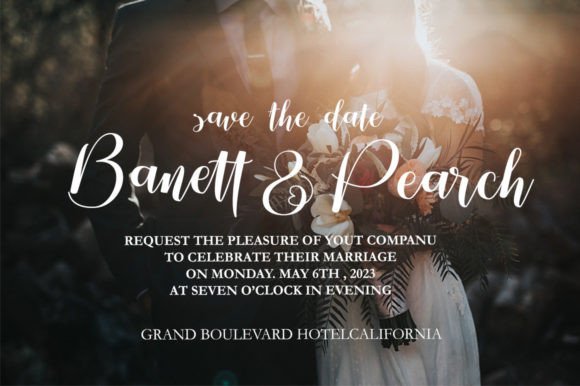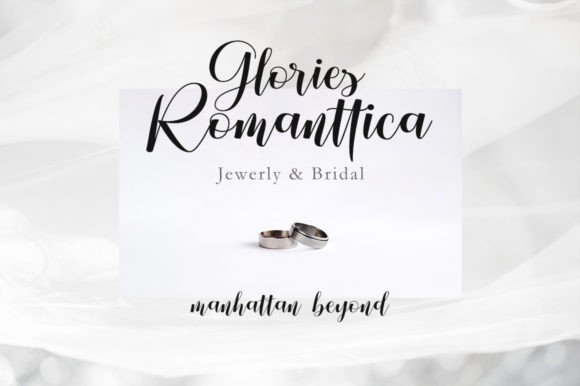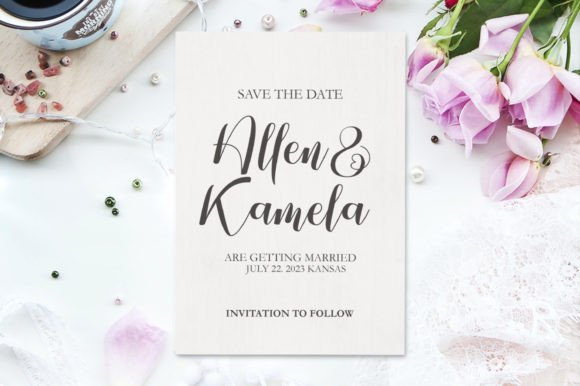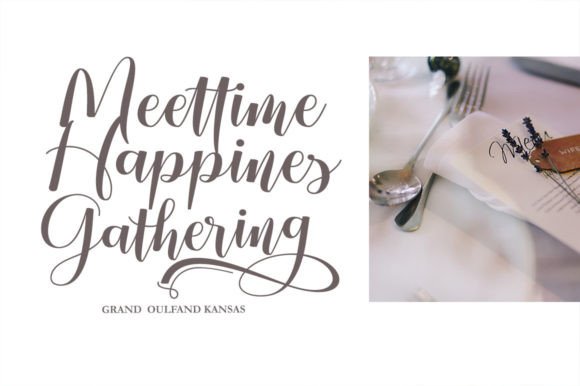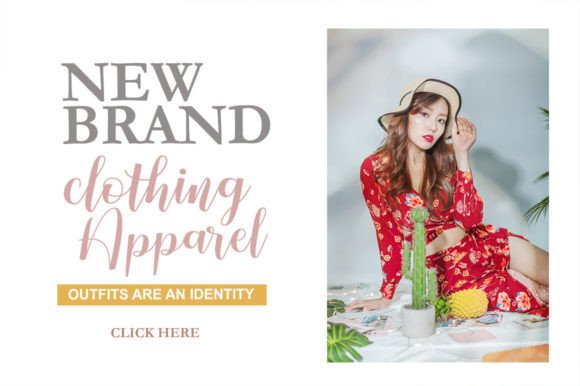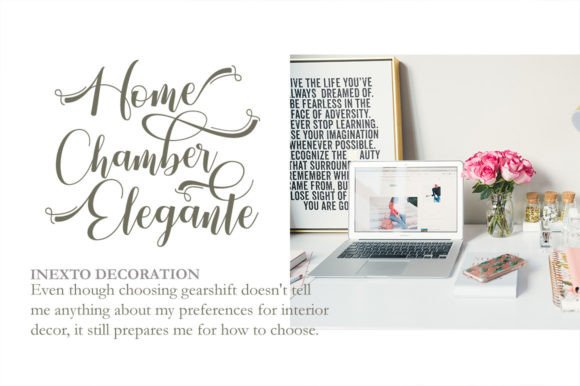
Introducing Amole Font: The Ultimate Romantic Calligraphy Typeface
Are you looking for a font that adds a touch of luxury and romance to your design projects? Look no further than Amole Font! This stunning calligraphy typeface is designed to make your designs stand out with its unique and elegant style. In this article, we’ll dive into the features and benefits of Amole Font, and explore how it can elevate your design game.
What is Amole Font?
Amole Font is a romantic and sweet calligraphy typeface that is sure to capture the hearts of designers and crafters alike. Its characters are carefully crafted to dance along the baseline, creating a sense of movement and fluidity that is both visually appealing and engaging. With its elegant and refined style, Amole Font is perfect for adding a touch of luxury to any design project.
Key Features of Amole Font
- Romantic and Sweet Style: Amole Font boasts a romantic and sweet calligraphy style that is perfect for designs that require a touch of elegance and sophistication.
- Unique Character Movement: The characters in Amole Font are designed to dance along the baseline, creating a sense of movement and fluidity that sets it apart from other fonts.
- Luxury and Refined: Amole Font is perfect for designs that require a touch of luxury and refinement, making it ideal for high-end branding, packaging, and marketing materials.
- Highly Versatile: Amole Font can be used for a wide range of design projects, from wedding invitations and stationery to logos, branding, and advertising.
Benefits of Using Amole Font
So, why should you choose Amole Font for your design projects? Here are just a few benefits of using this stunning calligraphy typeface:
- Adds a Touch of Luxury: Amole Font adds a touch of luxury and sophistication to any design project, making it perfect for high-end branding and marketing materials.
- Creates Emotional Connection: The romantic and sweet style of Amole Font creates an emotional connection with the viewer, making it perfect for designs that require a personal touch.
- Stand Out from the Crowd: Amole Font is a unique and distinctive typeface that will help your designs stand out from the crowd and grab attention.
Who Can Use Amole Font?
Amole Font is perfect for a wide range of designers and crafters, including:
- Graphic Designers: Amole Font is perfect for graphic designers who need a luxurious and refined font for their designs.
- Wedding Designers: Amole Font is ideal for wedding designers who need a romantic and sweet font for wedding invitations, stationery, and other materials.
- Crafters: Amole Font is perfect for crafters who need a unique and elegant font for their DIY projects, such as handmade cards, gift tags, and other paper crafts.
- Branding and Marketing Professionals: Amole Font is perfect for branding and marketing professionals who need a luxurious and refined font for their clients’ branding and marketing materials.
Tips for Using Amole Font
Here are a few tips for using Amole Font in your design projects:
- Use it Sparingly: Amole Font is a statement font, so use it sparingly to add emphasis and luxury to your designs.
- Pair it with Other Fonts: Amole Font pairs well with other fonts, so experiment with different combinations to find the perfect look for your design.
- Experiment with Colors: Amole Font looks stunning in a range of colors, so experiment with different colors to find the perfect look for your design.
In conclusion, Amole Font is a romantic and sweet calligraphy typeface that is perfect for adding a touch of luxury and elegance to any design project. With its unique character movement, refined style, and highly versatile nature, Amole Font is a must-have for designers and crafters alike. Whether you’re a graphic designer, wedding designer, crafter, or branding and marketing professional, Amole Font is sure to elevate your design game and help you create stunning designs that stand out from the crowd.